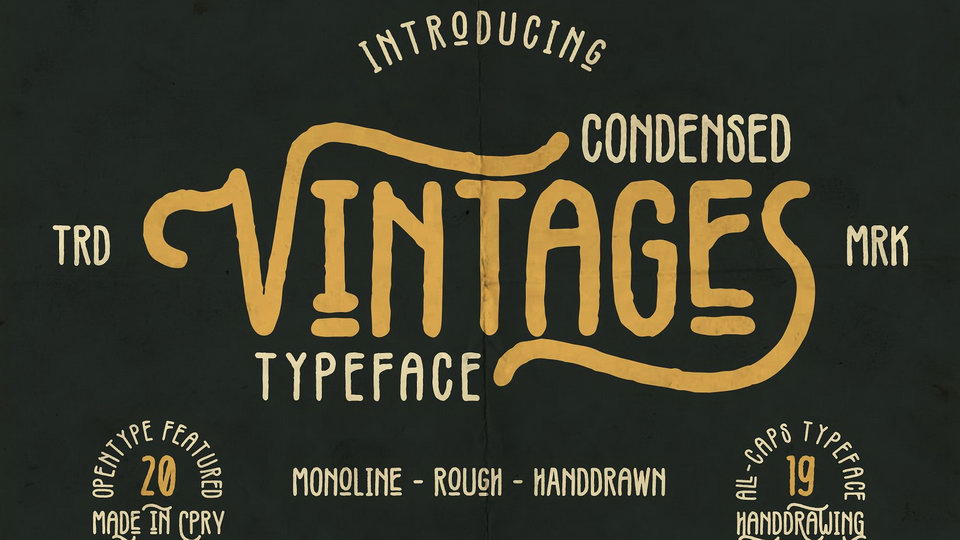
Download Vintages – a handmade modern vintage monoline display typeface, condensed with all caps characther pairing which is combining the style of classic typography with a modern hand-drawn style.
Designer: Garisman Studio